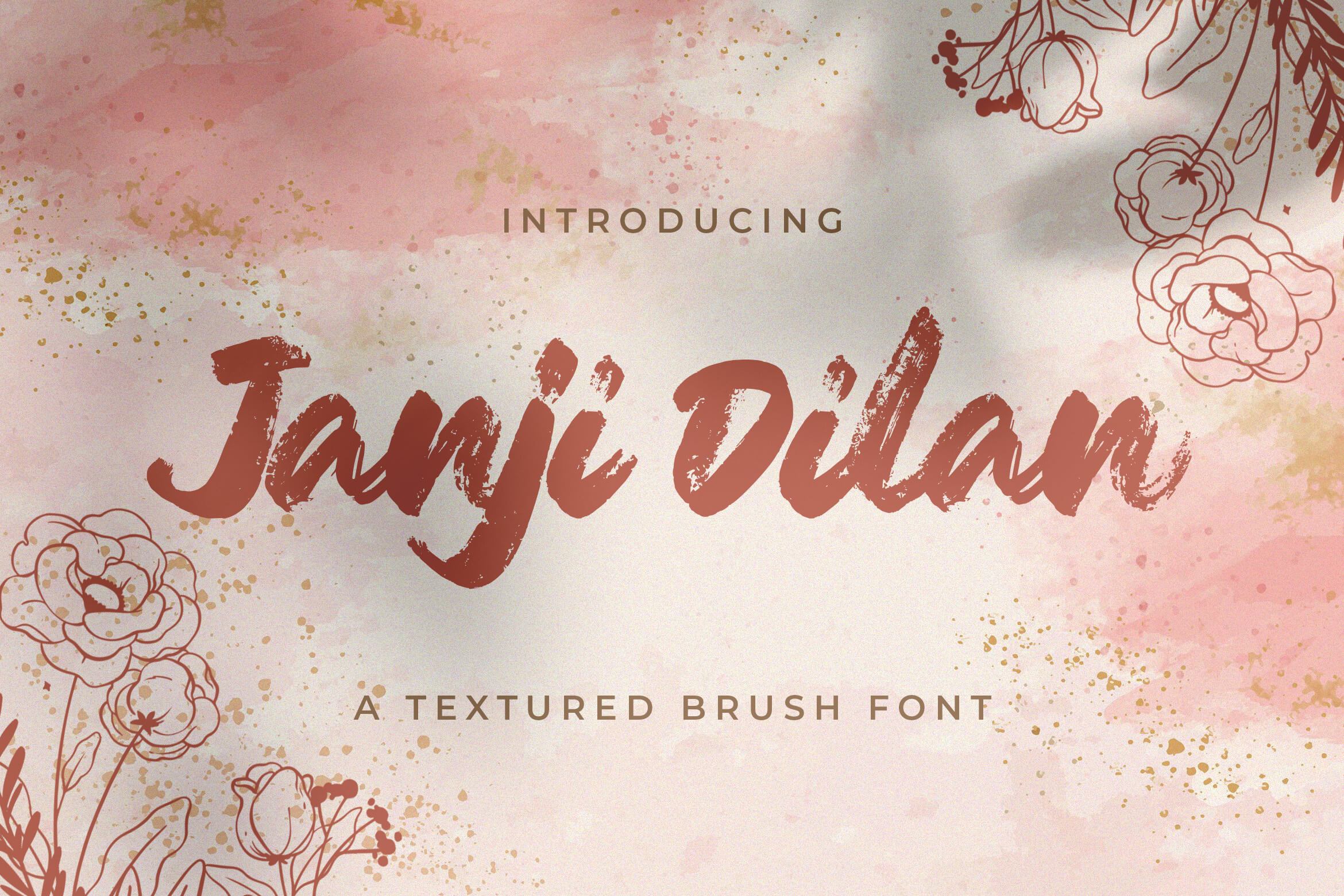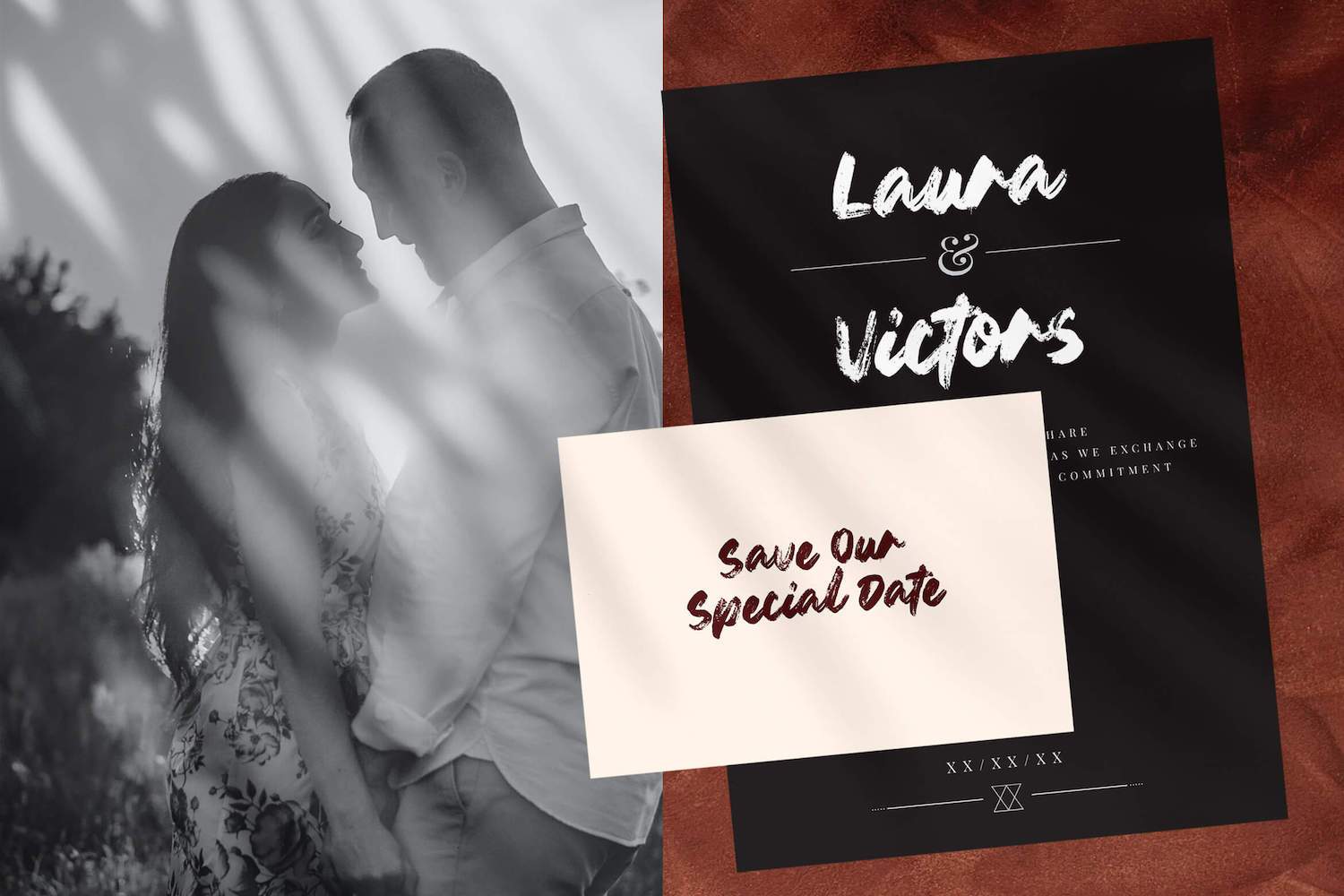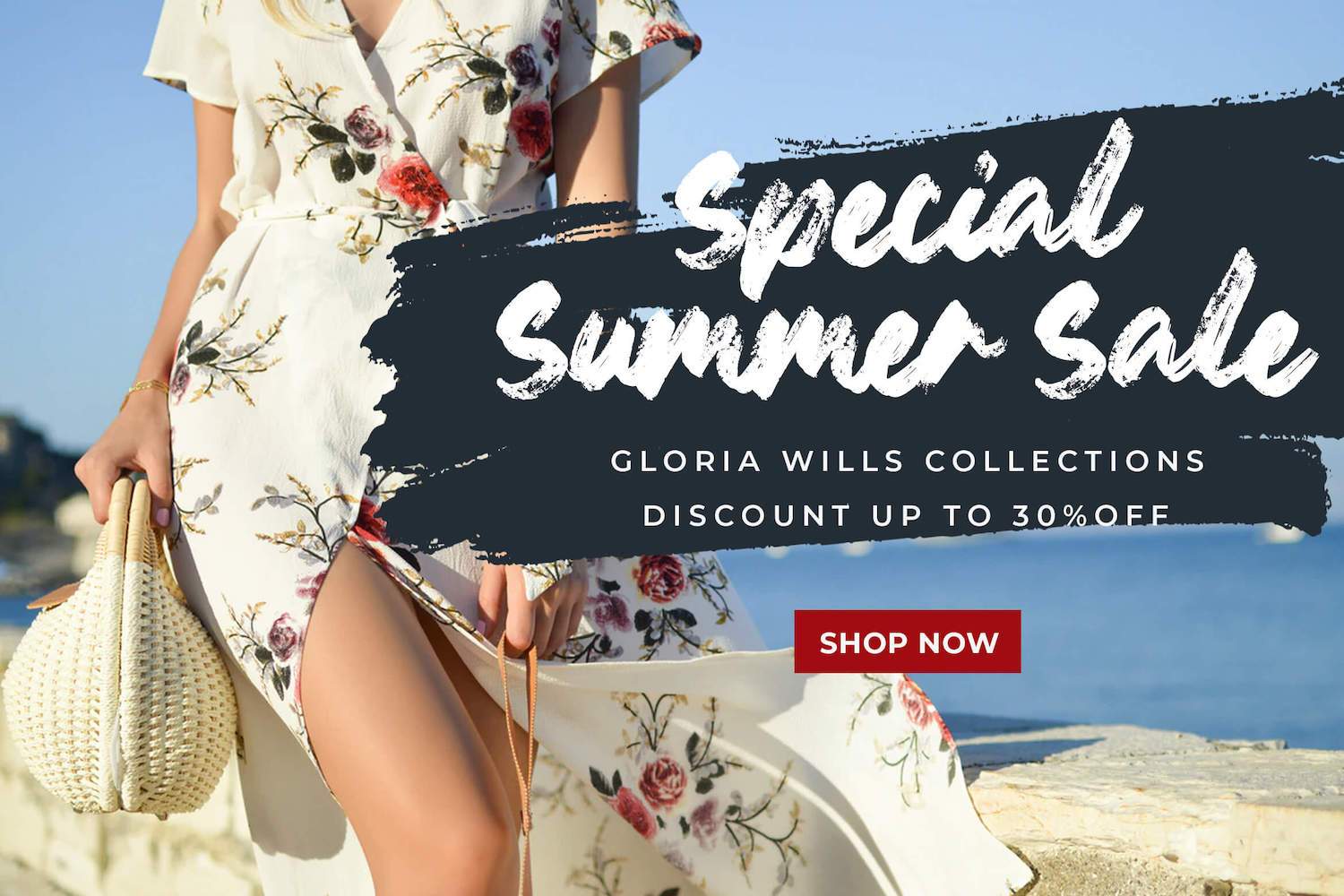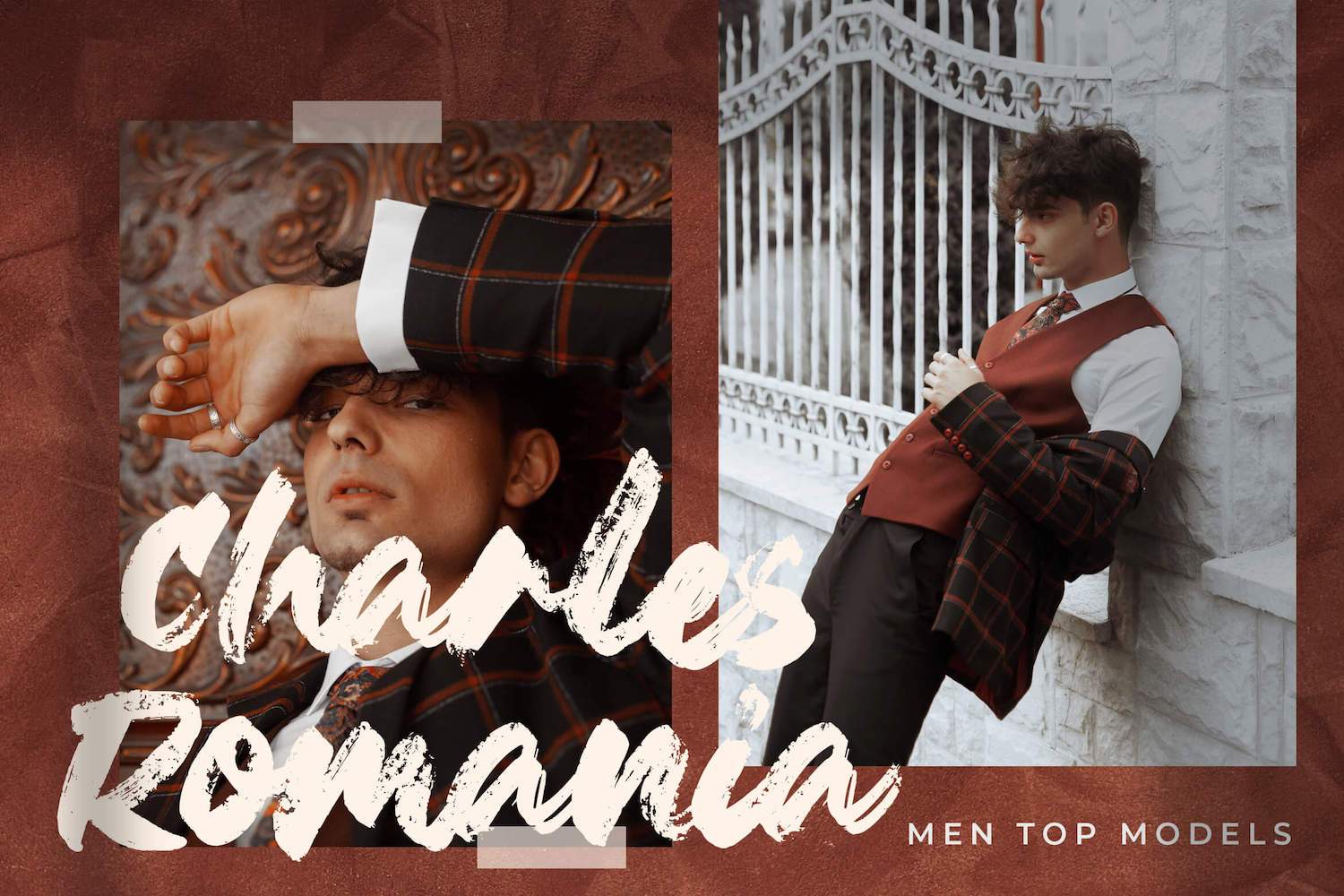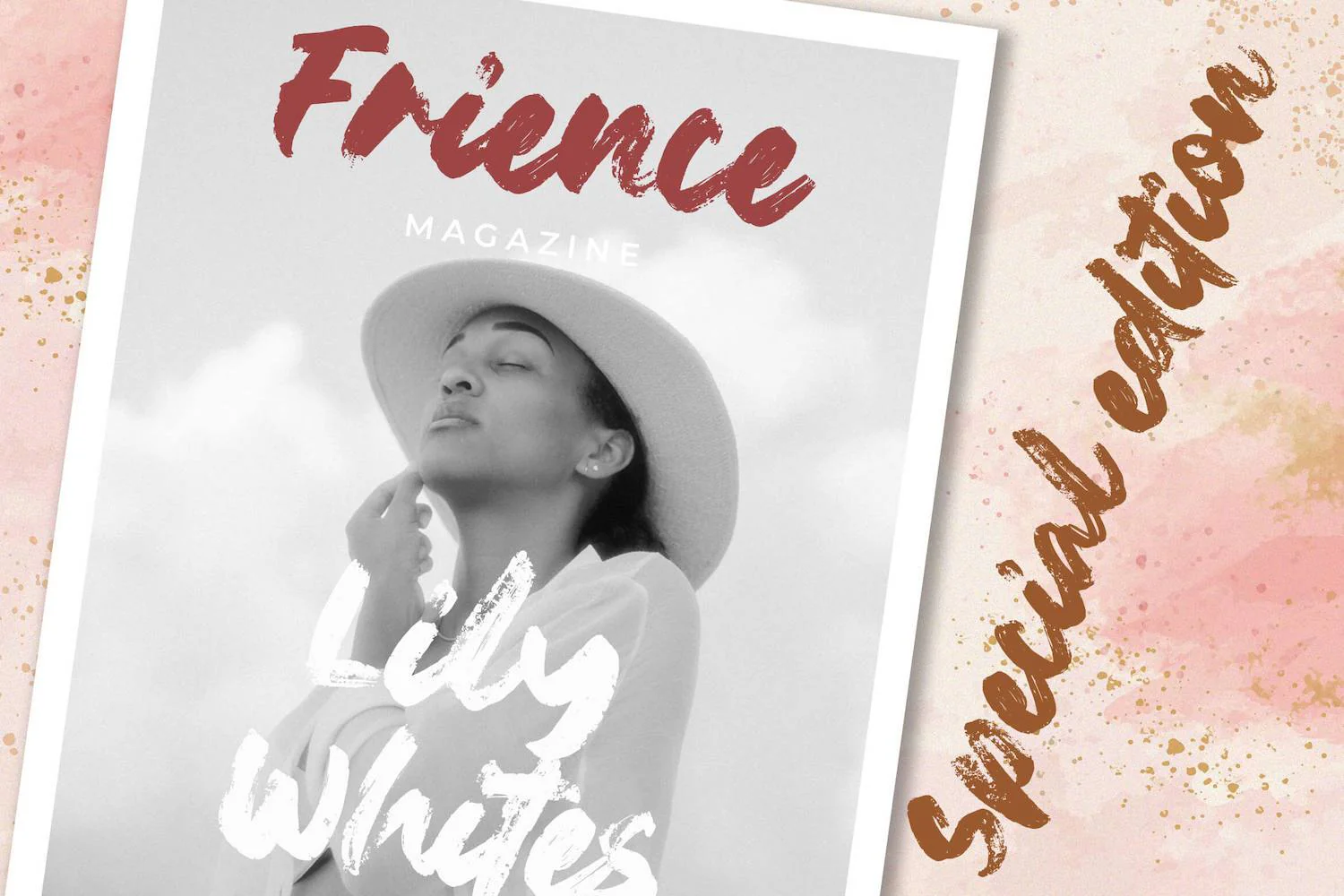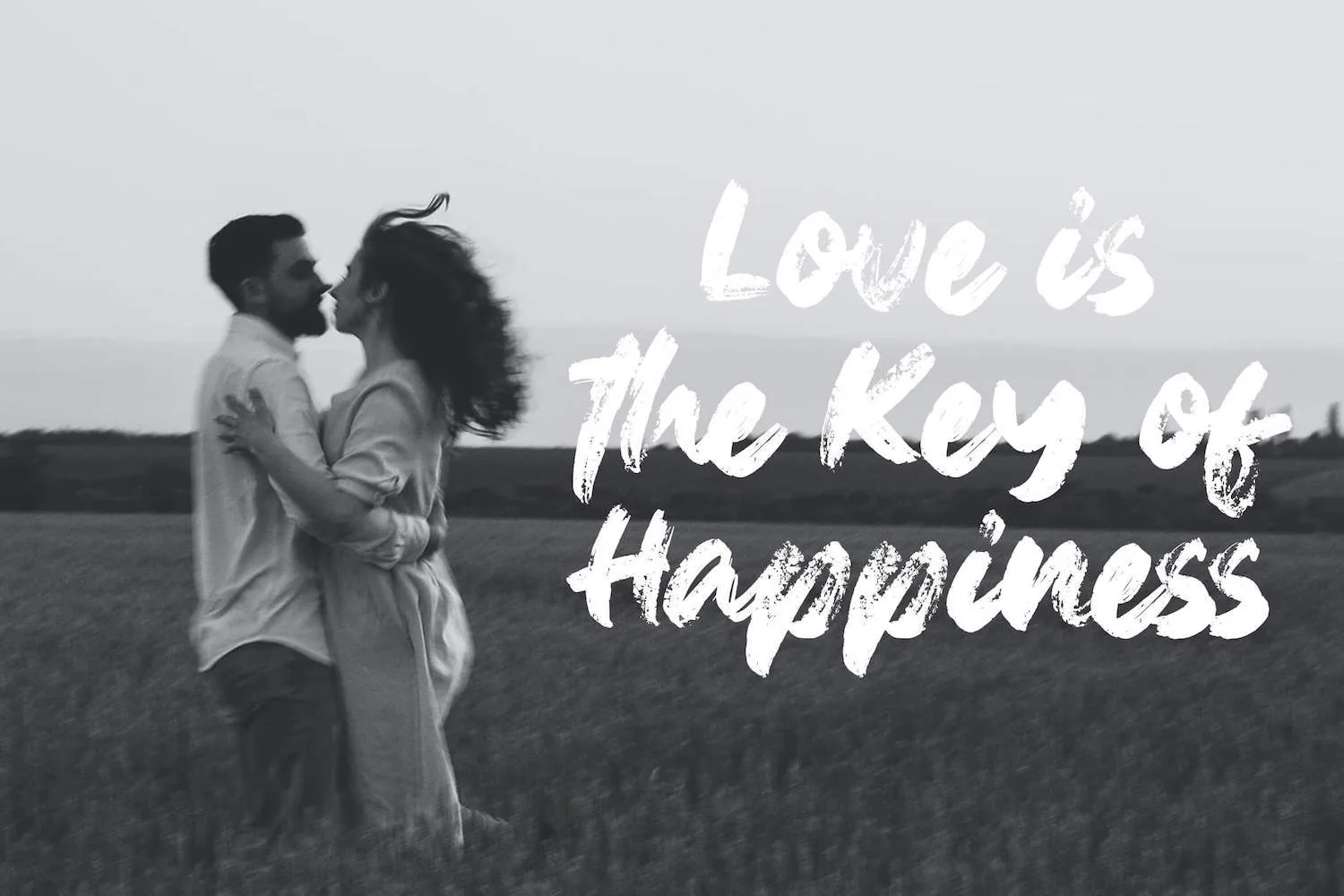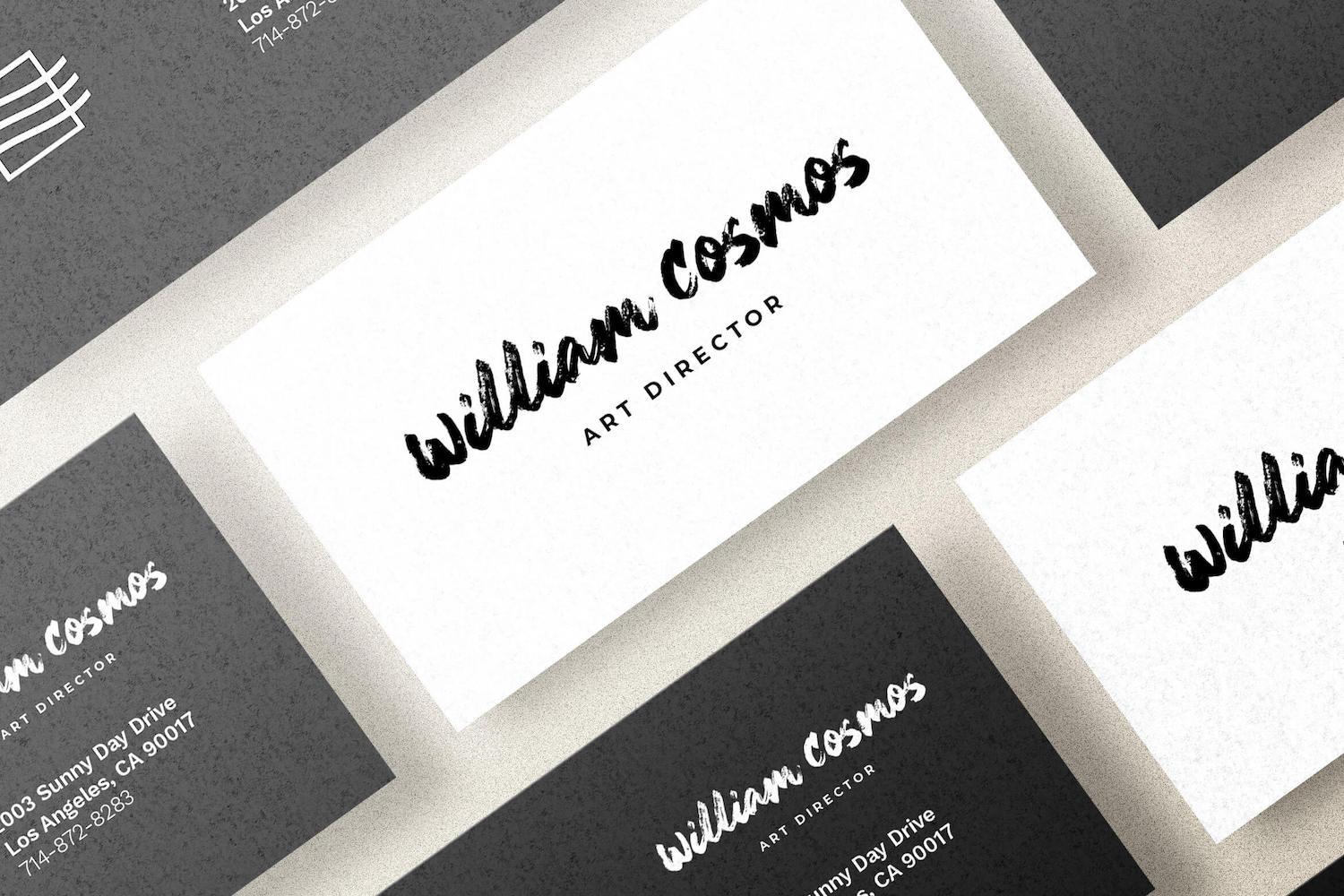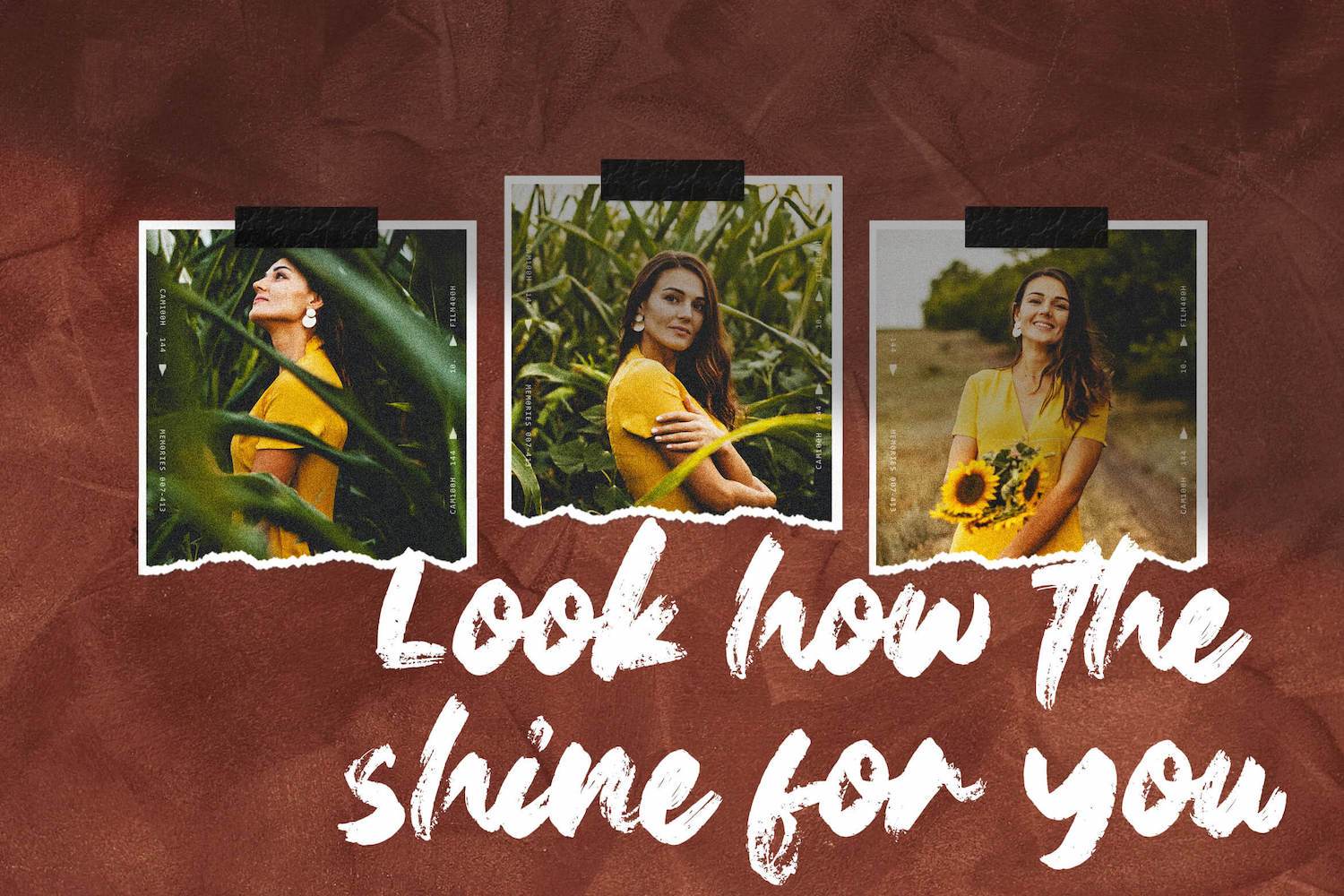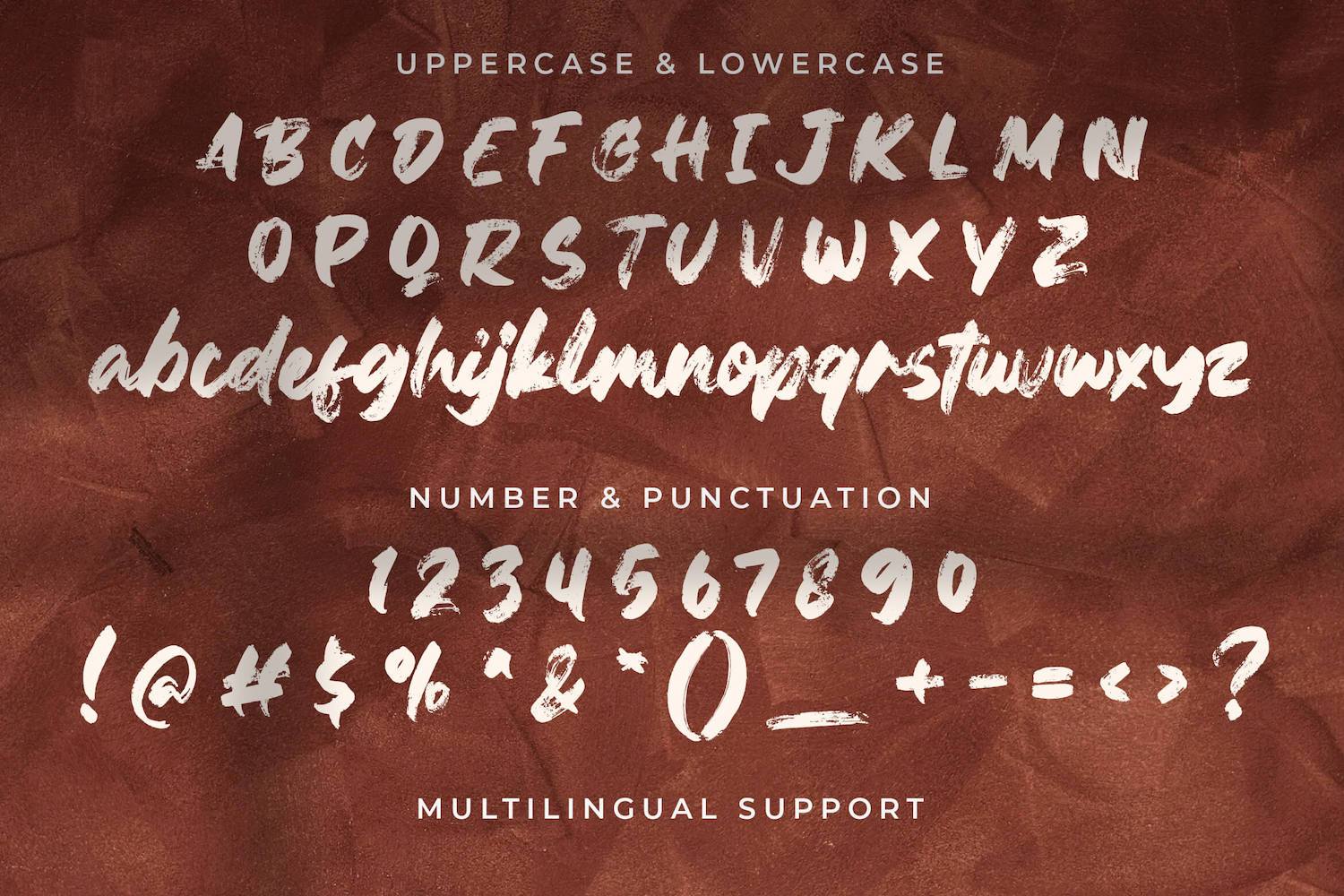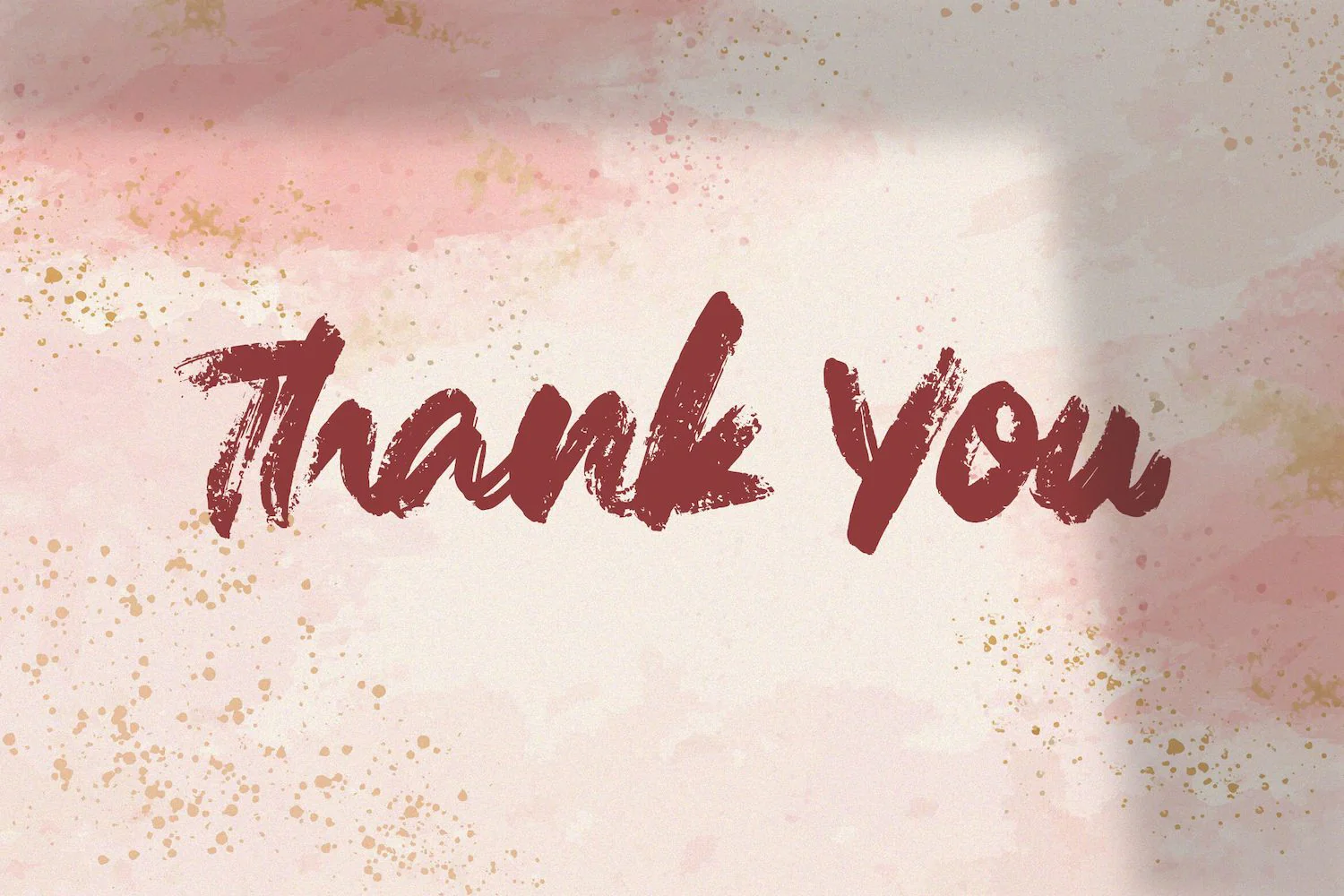
Janji Dilan - Textured Brush Font
Introducing Janji Dilan - Textured Brush Font
Janji Dilan is a textured handbrush font. Get inspired by its unique and beautiful style and add it to your favorite designs!
Introducing Janji Dilan - Textured Brush Font
Janji Dilan is a textured handbrush font. Get inspired by its unique and beautiful style and add it to your favorite designs!